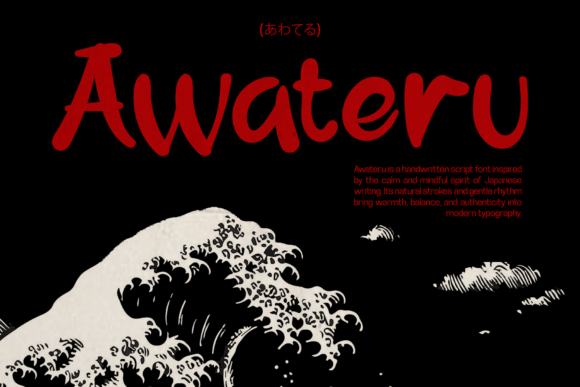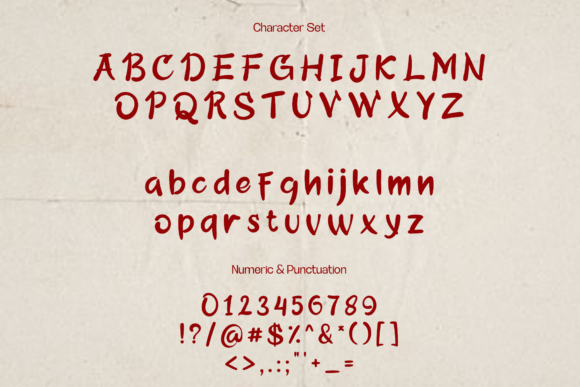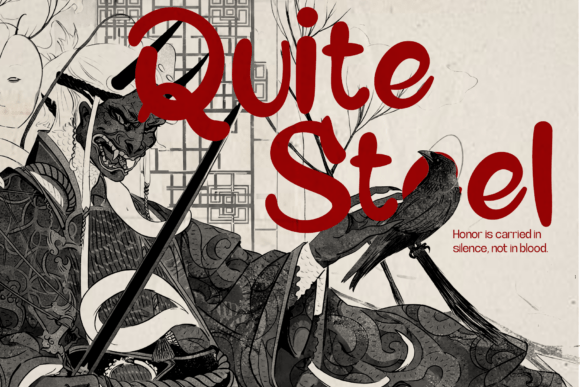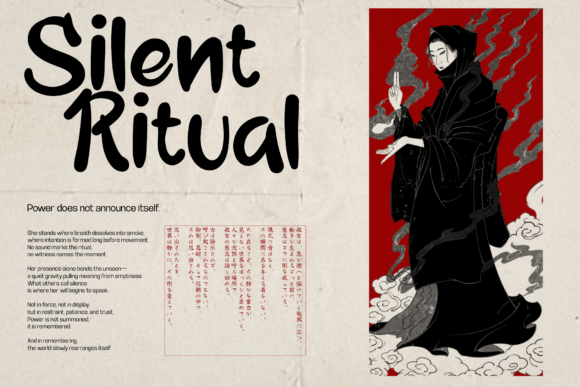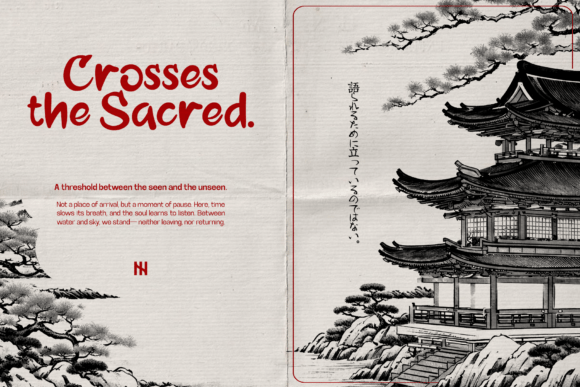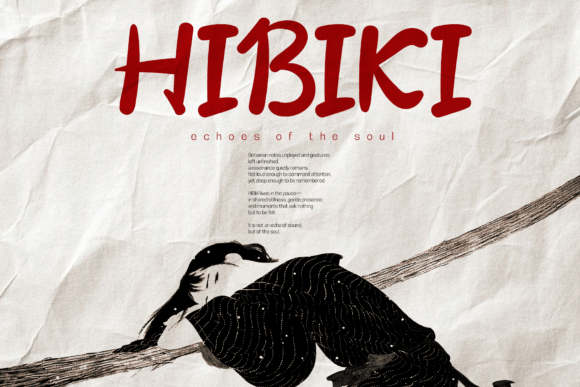
A Moment of Creative Serenity
Imagine yourself sitting in a quiet tea house, surrounded by the soft glow of candles and the gentle rustle of leaves outside. As you take a sip of steaming hot tea, you begin to write, letting your thoughts flow effortlessly onto the paper. This serene moment is the perfect inspiration for the Awateru Font, a Japanese handwriting script font that captures the essence of traditional Japanese writing.
Designed to evoke a sense of calm and authenticity, the Awateru Font is perfect for creative professionals looking to add a touch of elegance and balance to their typography. With its gentle rhythm and meditative strokes, this font is ideal for branding, editorial, packaging, posters, logotypes, and projects that seek a poetic or cultural aesthetic.
Awateru Font Key Features
- Font Family: Awateru Font is a unique, hand-drawn script font designed for creative and artistic applications.
- Unique Characteristics: Features a flowing, cursive script with a modern twist, making it ideal for titles, headings, and quotes.
Awateru Font Review
Overall, I was pleasantly surprised by the Awateru Font. It’s a modern, elegant script font that’s perfect for creative projects. Here’s what works well:
- ✨ The font is highly legible, making it easy to read even in smaller sizes.
- ✨ The elegant script style adds a touch of sophistication to any project.
- ✨ The font is highly versatile, suitable for both digital and print projects.
- ⚠️ The font is not as extensive as some other script fonts, with limited character sets and no Cyrillic or Greek support.
- ⚠️ The font may not be ideal for projects that require a more rustic or handwritten feel.
Overall, I’m impressed with the Awateru Font. While it may not be perfect, its elegant script style and high legibility make it a great choice for creative projects. If you’re looking for a modern, sophisticated font, the Awateru Font is definitely worth considering.
For best results, use the Awateru font in bold or italic styles to add emphasis to your text. You can also experiment with different font sizes and colors to create visually appealing combinations.
The Awateru font is ideal for creative projects such as logos, business cards, and brochures. It’s also suitable for personal projects like invitations, menus, and social media graphics.
Compared to Awateru Font, Great Vibes Font has a more refined and polished look, with a focus on elegance and sophistication. While Awateru Font has a more playful and whimsical feel, Great Vibes Font is more serious and refined.
Compared to Awateru Font, Carter Script Font has a more traditional and timeless feel, with a focus on classic elegance and sophistication. While Awateru Font has a more modern and playful feel, Carter Script Font is more traditional and refined.